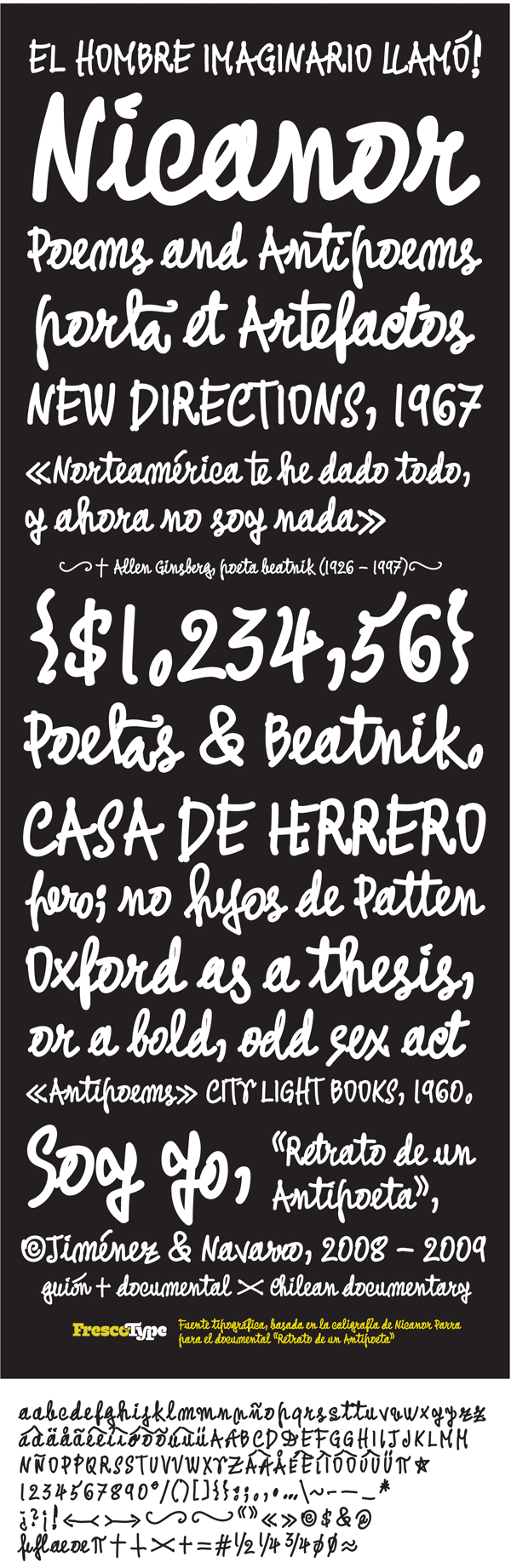
In 2008, we developed a custom typeface based on the handwriting of the anti-poet Nicanor Parra, for the documentary ‘Retrato de un Antipoeta’. The film was directed by Victor Jimenez, and the art direction was by Maria Eugenia Navarro.
En 2008, desarrollamos una fuente personalizada, basada en la letra manuscrita característica del anti-poeta Nicanor Parra, para el documental ‘Retrato de un Antipoeta’. La película fue dirigida por Víctor Jimenez, y la dirección de arte fue realizada por María Eugenia Navarro.